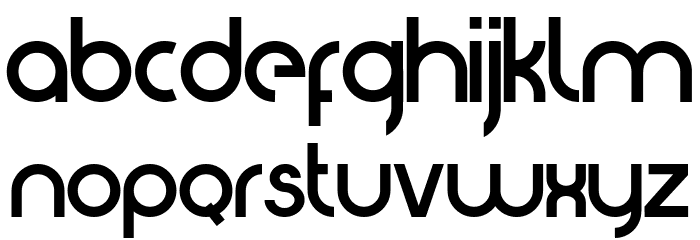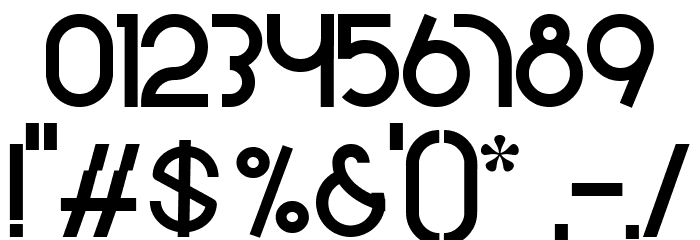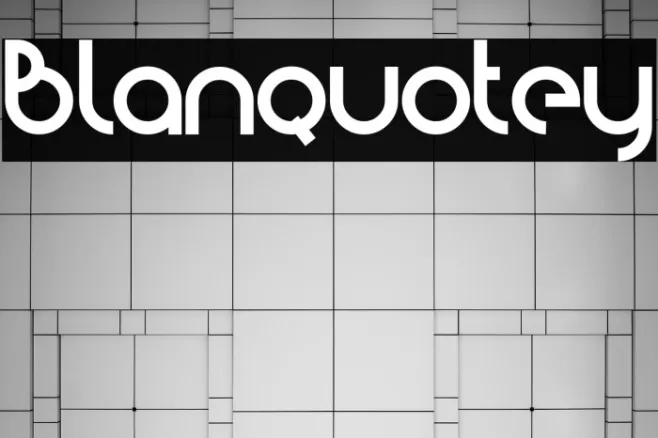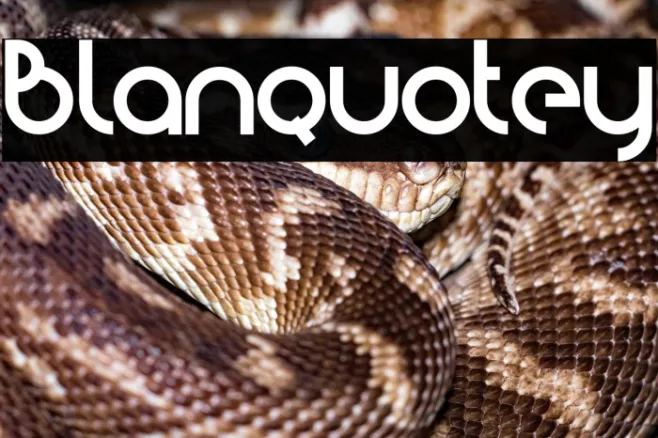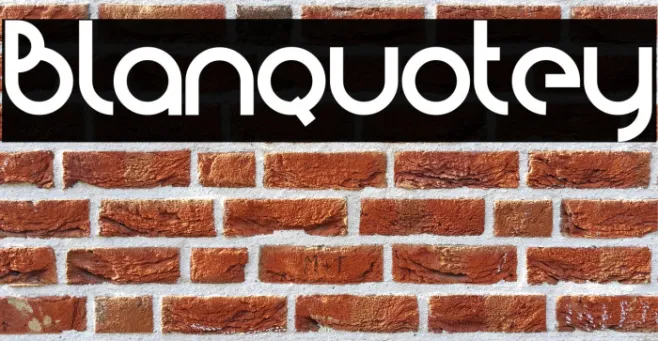
Blanquotey Font
This font features a modern, geometric design with clean lines and a minimalist aesthetic. The uppercase letters are characterized by their uniform height and rounded edges, creating a harmonious and balanced appearance. The lowercase letters maintain this geometric style, with some unique variations that add a touch of creativity, such as the distinctive 'g' and 'q'. The numerals are bold and consistent, ensuring readability. Special characters are designed to match the overall style, providing a cohesive look across all elements. This font's simplicity and clarity make it versatile for various design applications.
A modern, geometric font with clean lines and a minimalist style.
- Font: Blanquotey
- Proposed Projects: Ideal for branding, advertising, posters, and digital media where a modern and clean look is desired.
- Category: Sans-Serif
- Use Case: Headlines, Logos, Branding